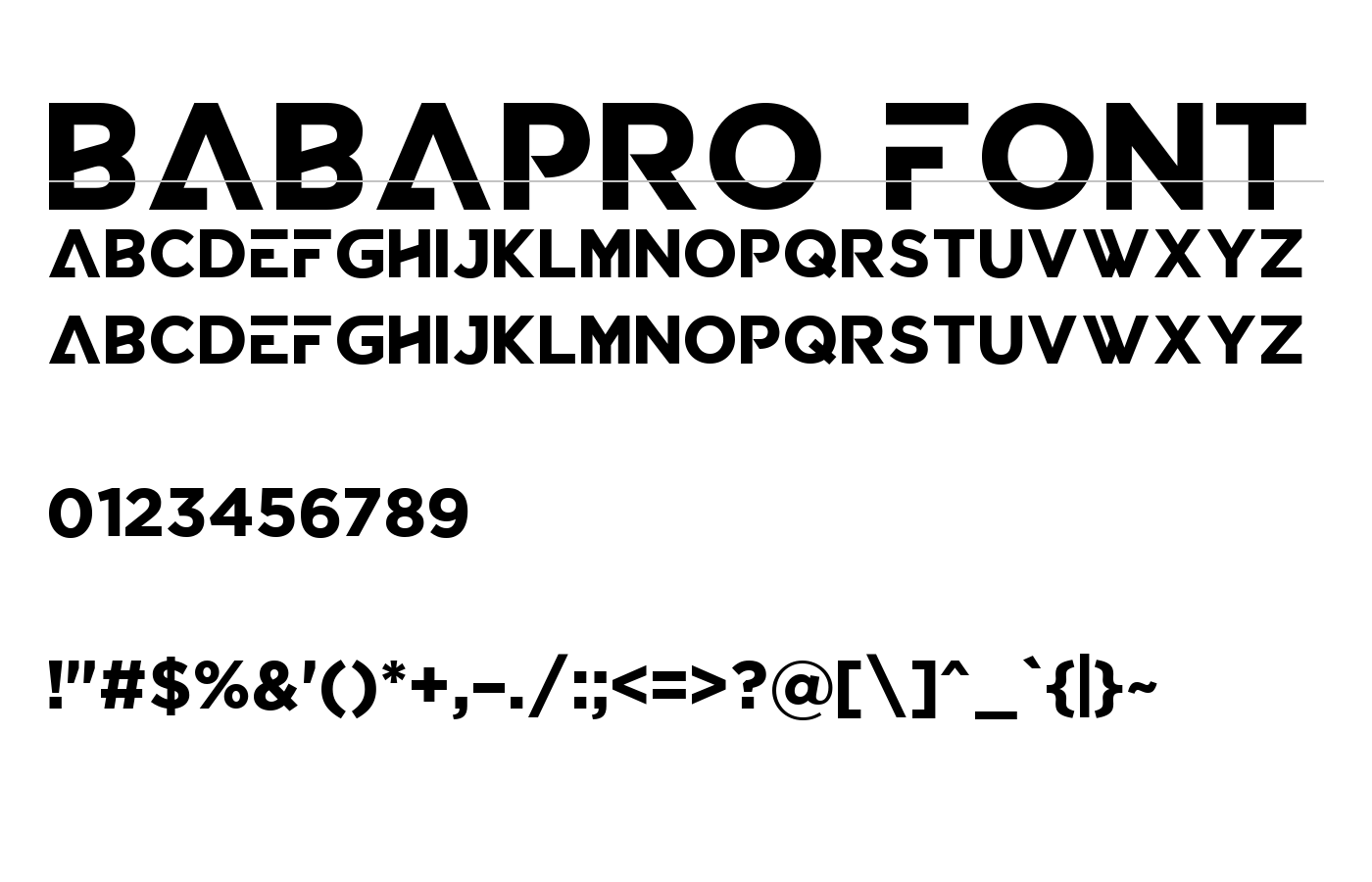
BABAPRO FONT is a bold, modern sans serif typeface with strong geometric shapes and unique cut-out details that add a distinctive, edgy character. It features a wide, sturdy appearance with consistent stroke weight and a clean, futuristic vibe, making it perfect for eye-catching headlines, branding, and display uses where a contemporary and confident tone is desired. Its innovative style works well in creative industries, tech, and fashion contexts that want to stand out with a bold visual statement.
BABAPRO FONT
About BABAPRO FONT